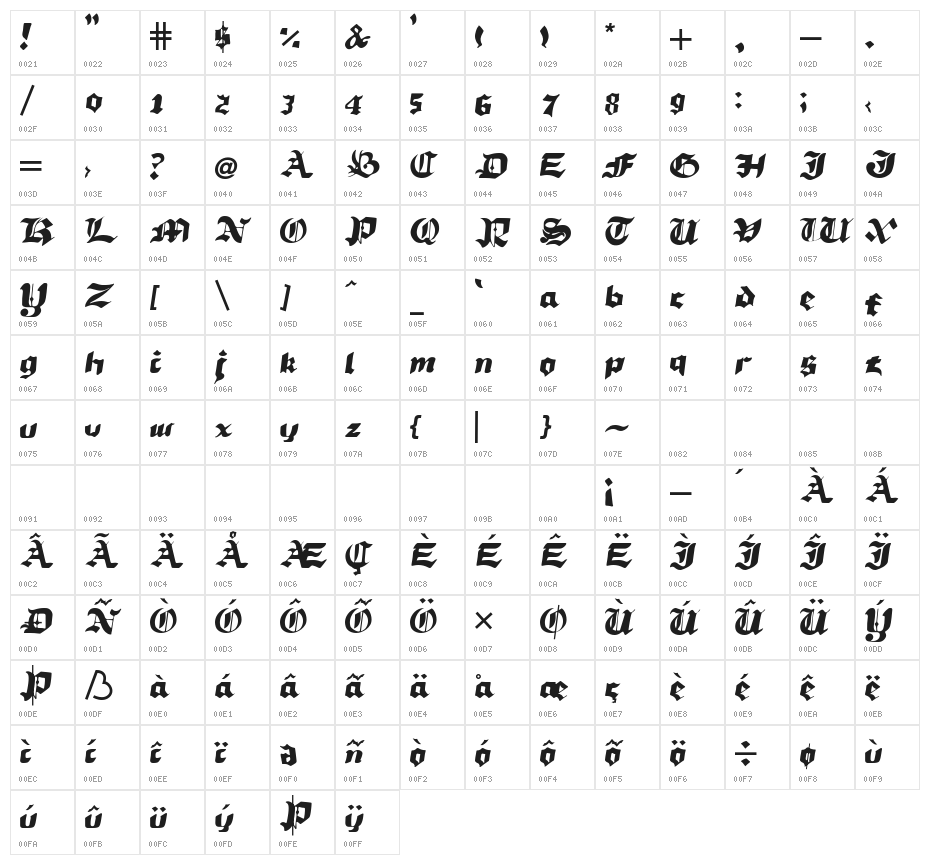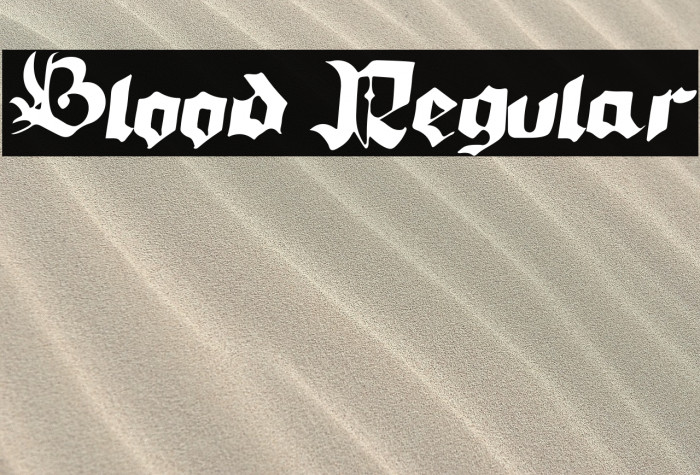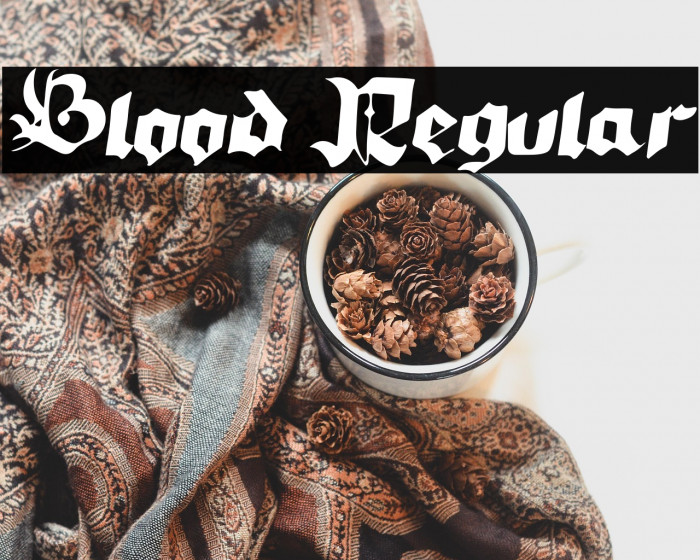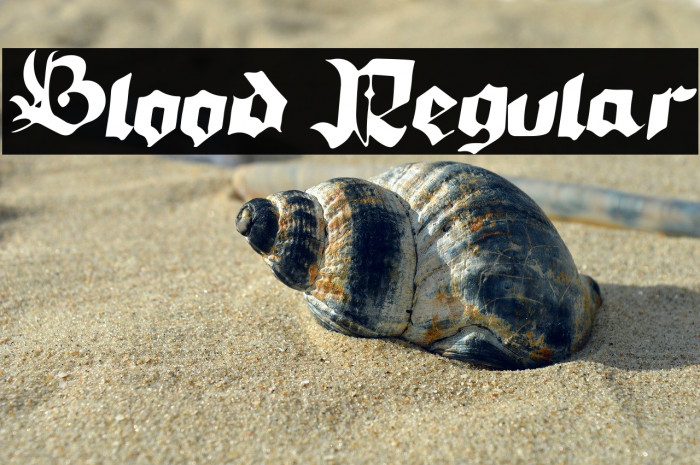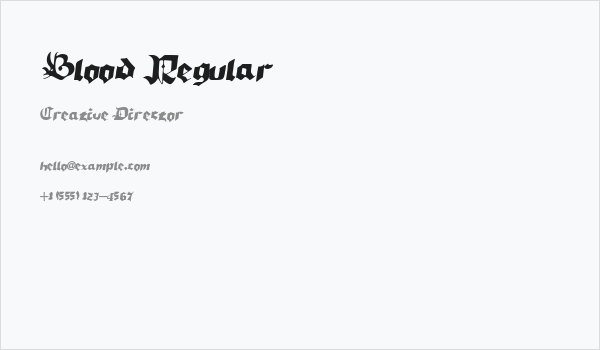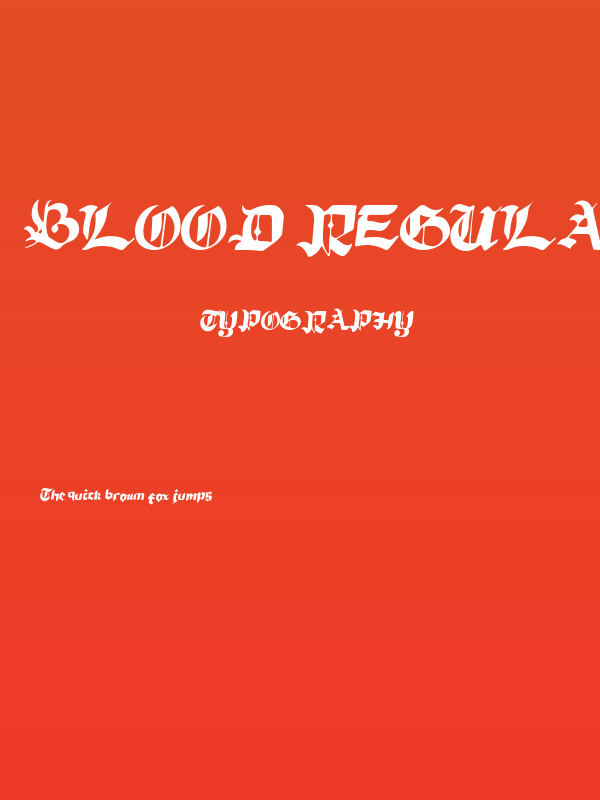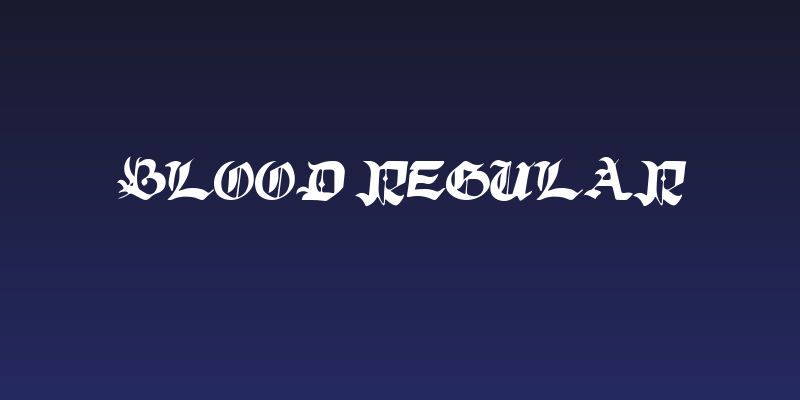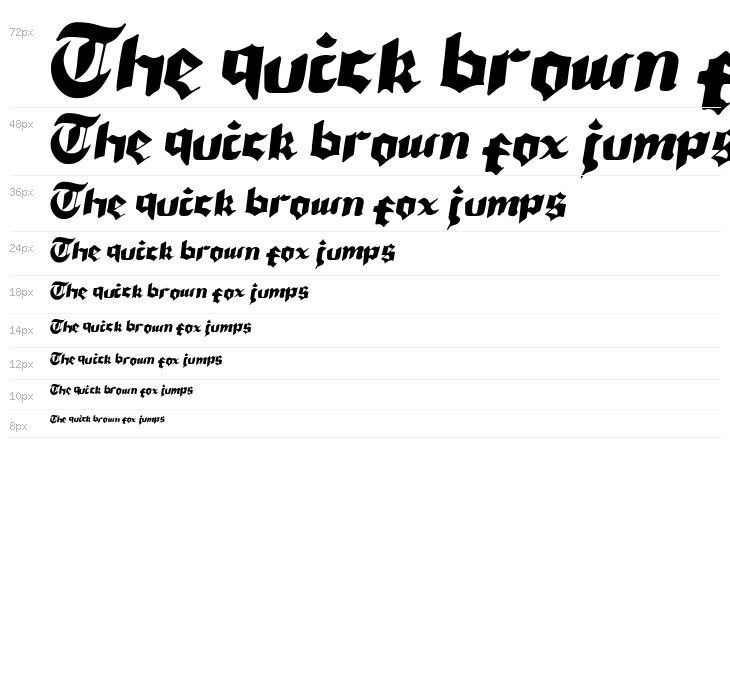
Blood Regular Font
Blood Regular Description
This font features a bold and dramatic style with sharp, angular edges and a gothic influence. The characters are intricately designed, with a strong emphasis on vertical strokes and pointed serifs, giving it a medieval and somewhat aggressive appearance. The uppercase letters are particularly striking, with elaborate flourishes that enhance their visual impact. The lowercase letters maintain the same boldness, ensuring consistency throughout the typeface. Numbers and special characters are crafted with the same attention to detail, making them suitable for thematic designs that require a touch of historical or fantasy elements.
| Proposed Projects | Ideal for use in fantasy-themed designs, historical posters, video game titles, and any project requiring a medieval aesthetic. |